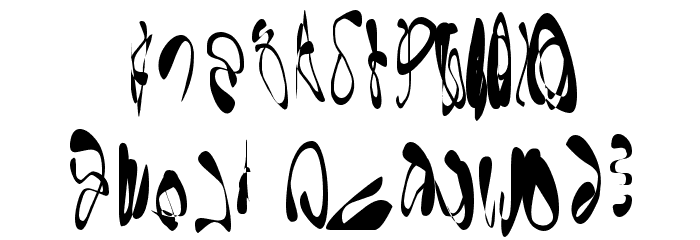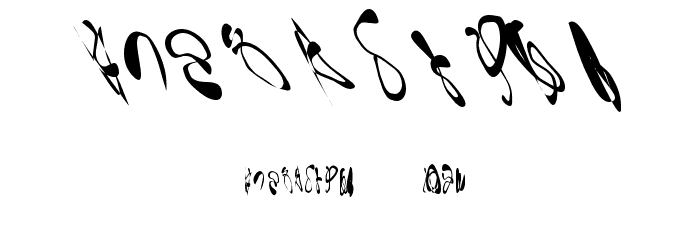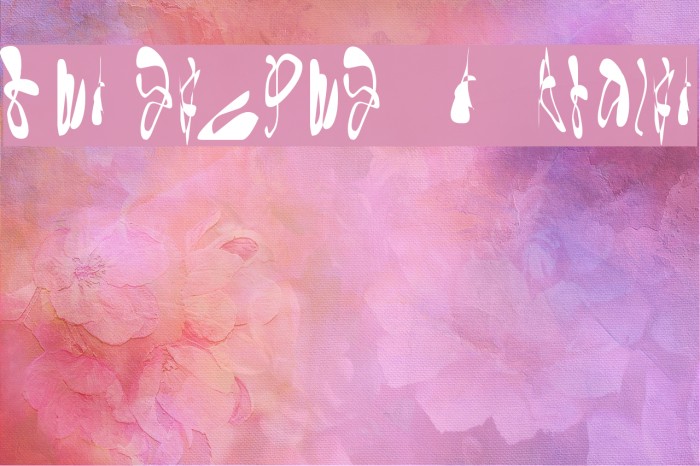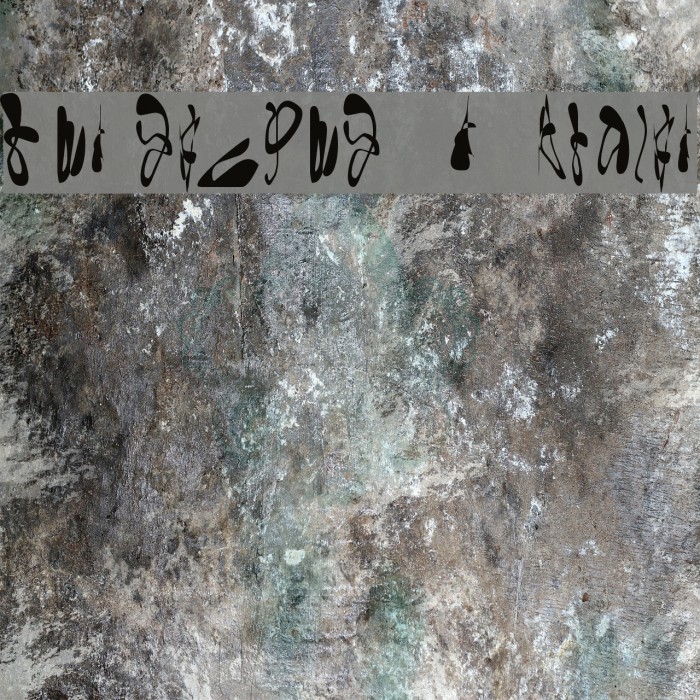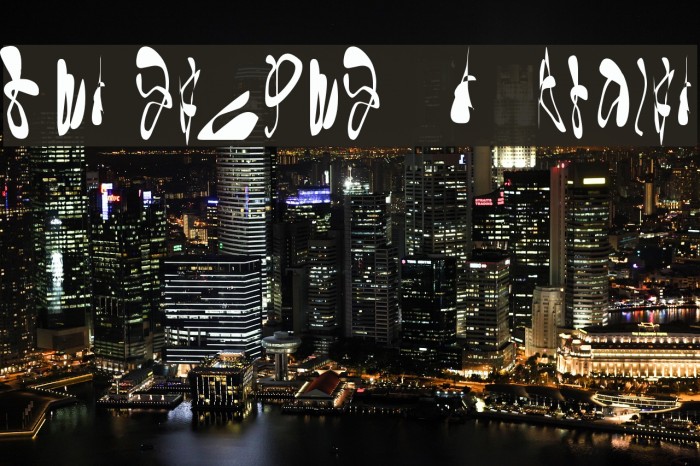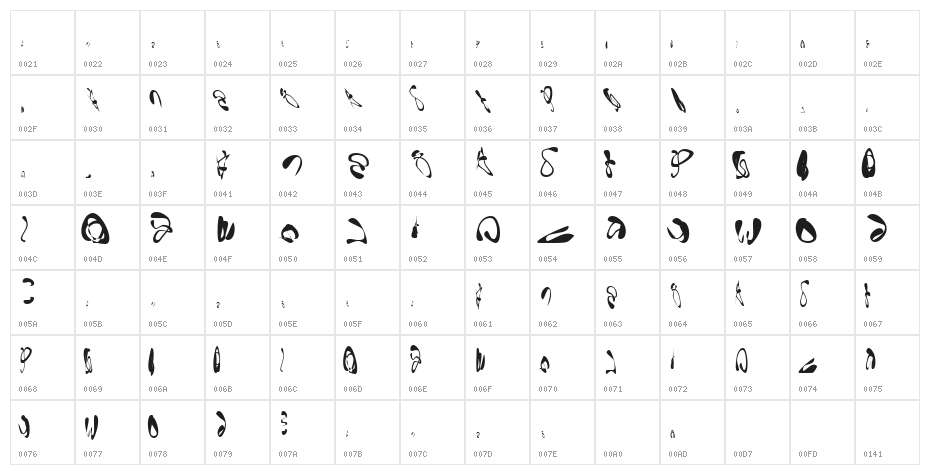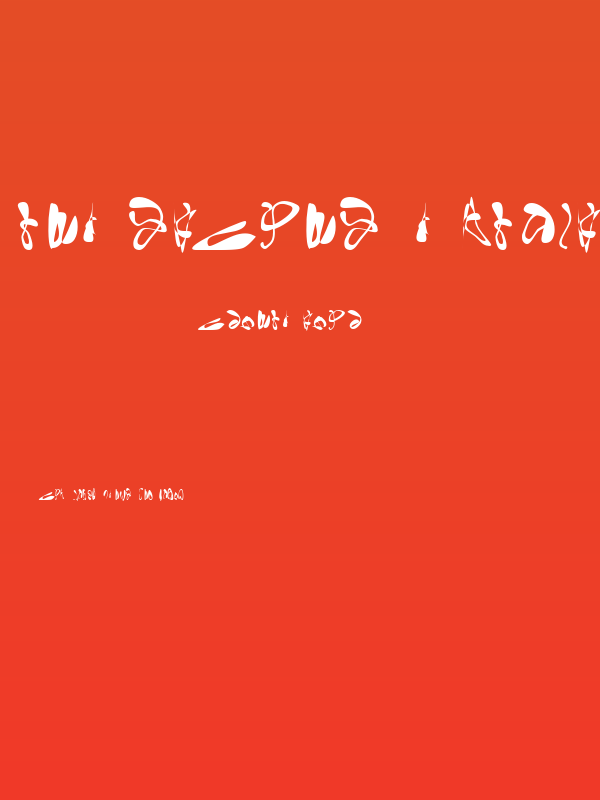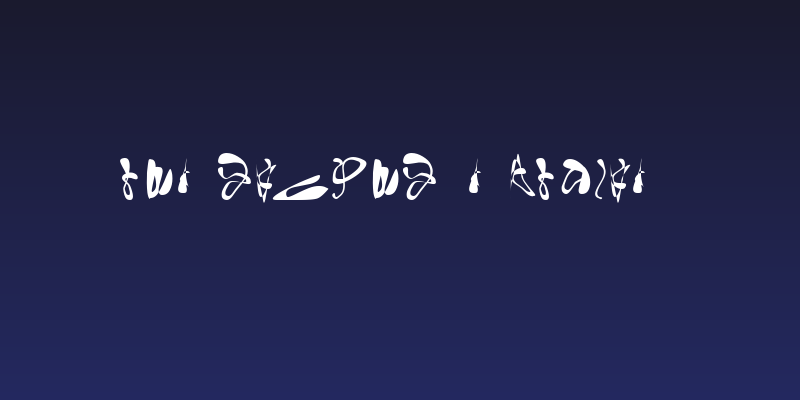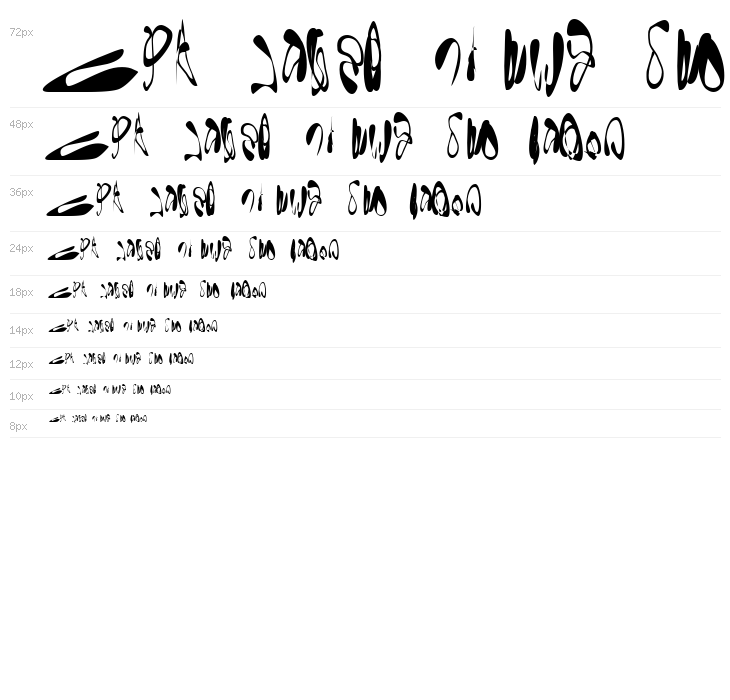
Gornathon Regular Font
This font features an abstract and highly artistic design, characterized by its swirling, fluid strokes that create a sense of movement and dynamism. The characters are bold and expressive, with a unique blend of thick and thin lines that give it a high contrast appearance. This font is not easily readable due to its decorative nature, making it more suitable for artistic and creative projects rather than practical text applications. Its style is reminiscent of modern art, with a focus on form and aesthetics over functionality.
An abstract, artistic font with swirling, fluid strokes and high contrast.
- Proposed Projects: Ideal for art projects, creative posters, album covers, and experimental design work.
- Overall Style: Modern, Artistic
- Use Case: Logos, Artistic displays